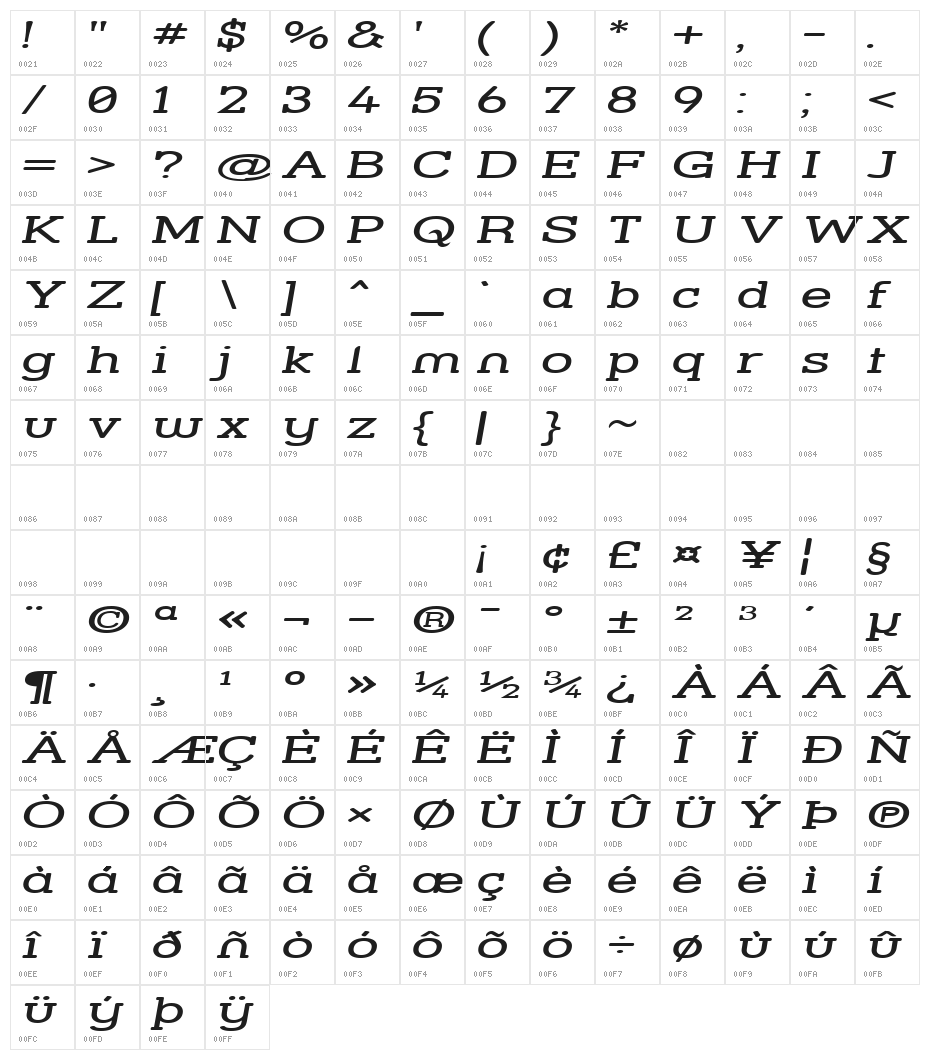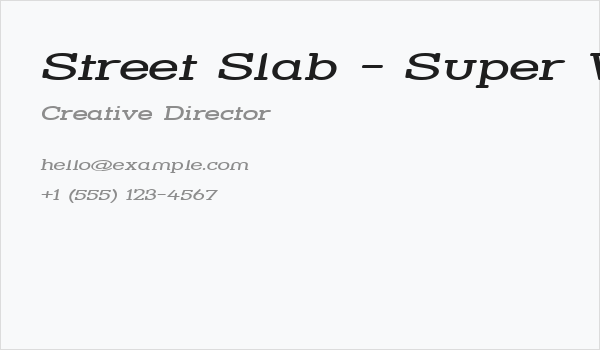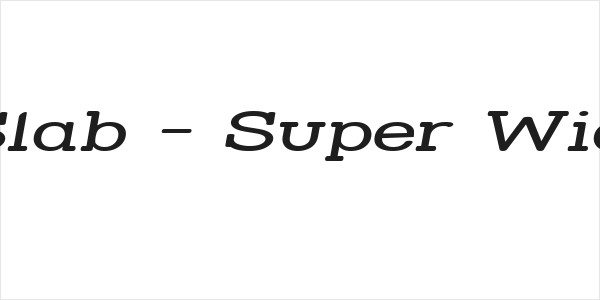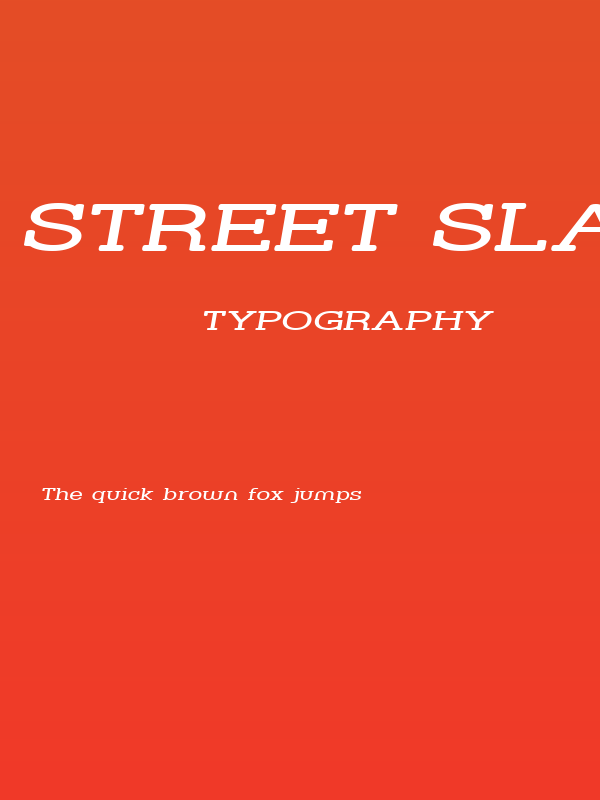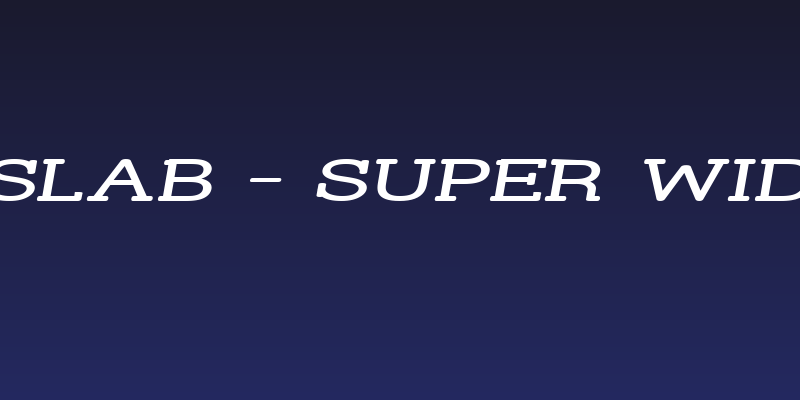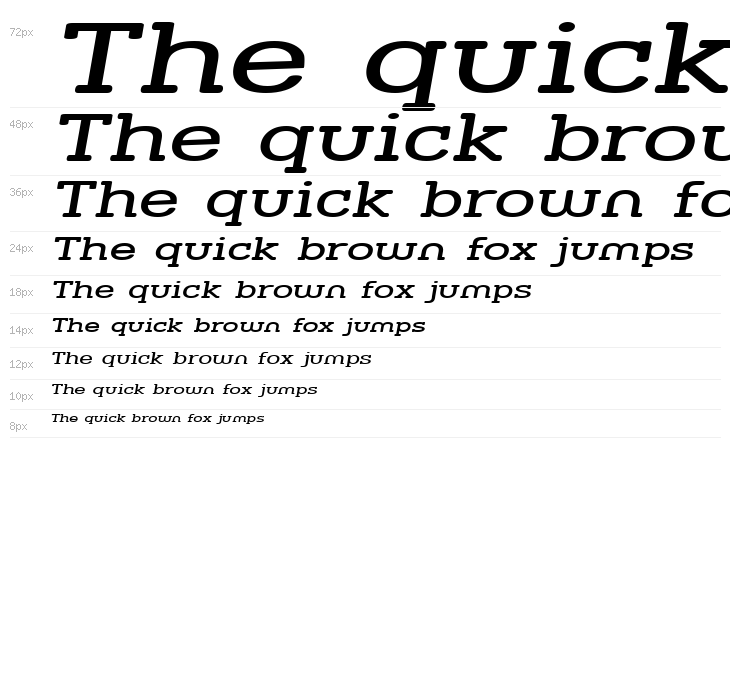
Street Slab - Super Wide Italic Font
Street Slab - Super Wide Italic Description
This font features a bold and robust slab serif design with a distinctive italic slant, giving it a dynamic and energetic appearance. The characters are super wide, providing a sense of openness and readability. The uppercase letters are strong and commanding, while the lowercase letters maintain a consistent flow with slightly rounded edges. Numerals are clear and well-defined, ensuring legibility. The special characters are designed to match the overall style, making them suitable for various contexts. This font's unique combination of slab serif elements and italic style makes it versatile for both modern and vintage-themed projects.
| Proposed Projects | Ideal for branding, headlines, posters, and any design requiring a bold statement with a touch of elegance. |